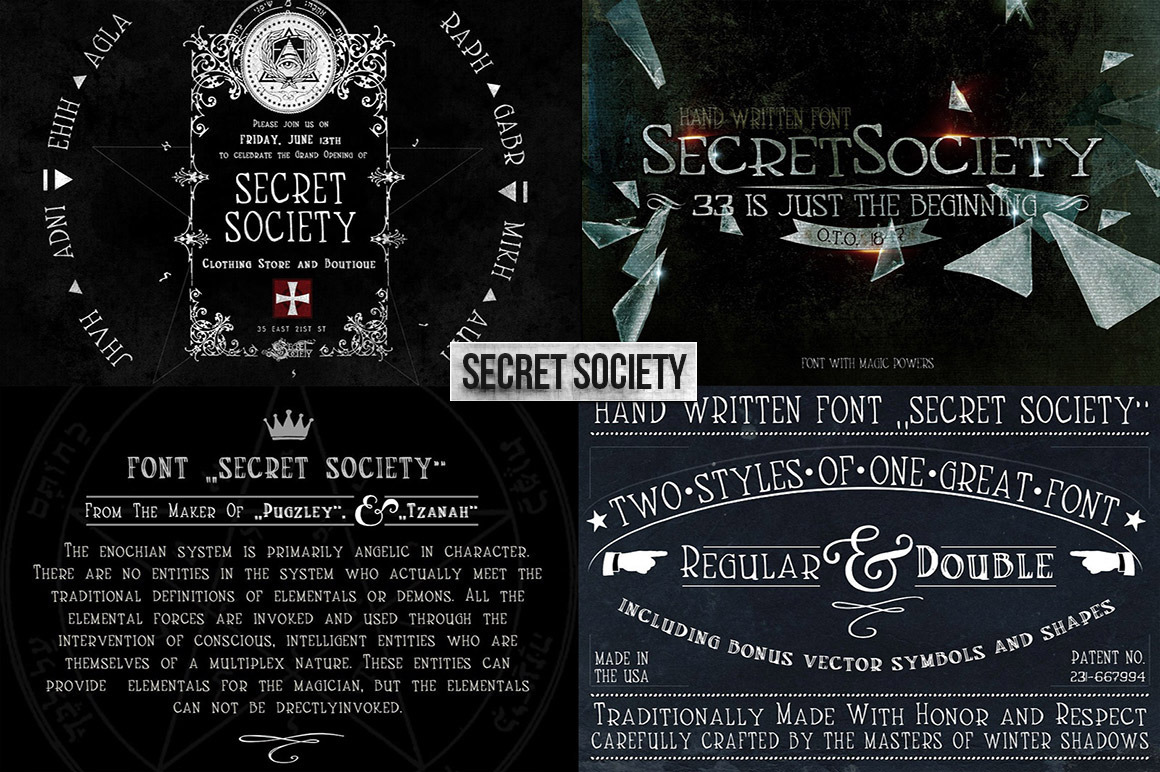
7 Handmade Fonts Bundle
This is the first time that we bundle some of the best of our custom grunge, rough, handmade fonts. And for a very low price. Included are:
- DarkMatter
- SecretSociety
- Mercedes1937
- Emily
- Hatross
- Hipster Dream
- Verboten